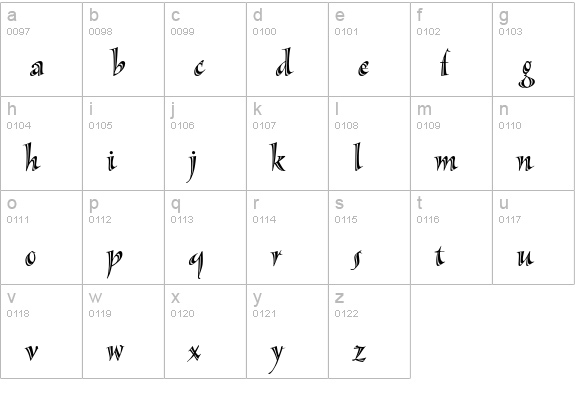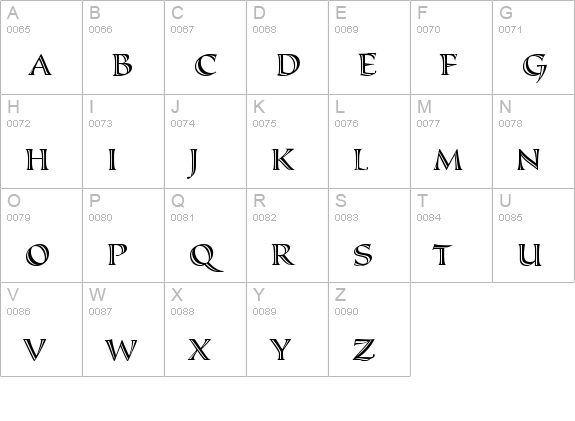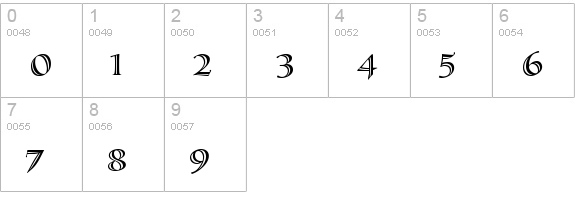
Sassafras Std Roman Font Details
Sassafras Std Roman font is a timeless and versatile typeface that exudes elegance and sophistication. With its classic and refined letterforms, this font is perfect for a wide range of design projects, from editorial layouts to branding materials. The Sassafras Std Roman font features clean lines and balanced proportions, making it highly legible and easy to read in both small and large sizes. Its graceful curves and subtle details add a touch of warmth and personality, making it a standout choice for any design that aims to make a lasting impression. One of the most remarkable aspects of the Sassafras Std Roman font is that it is freely available to download at FontsMarket.com. This means that designers can access this exceptional typeface without any cost, making it an excellent option for those on a budget or looking for high-quality fonts at no expense. Whether you are a professional designer or a hobbyist, Sassafras Std Roman font offers a wide range of possibilities for your creative projects. Its versatility and timeless appeal make it suitable for a variety of applications, including branding, packaging, signage, and more. With its effortless charm and wide availability, Sassafras Std Roman font is a must-have for any designer's font library. Download this exquisite typeface today at FontsMarket.com and experience the beauty and versatility that this font has to offer.